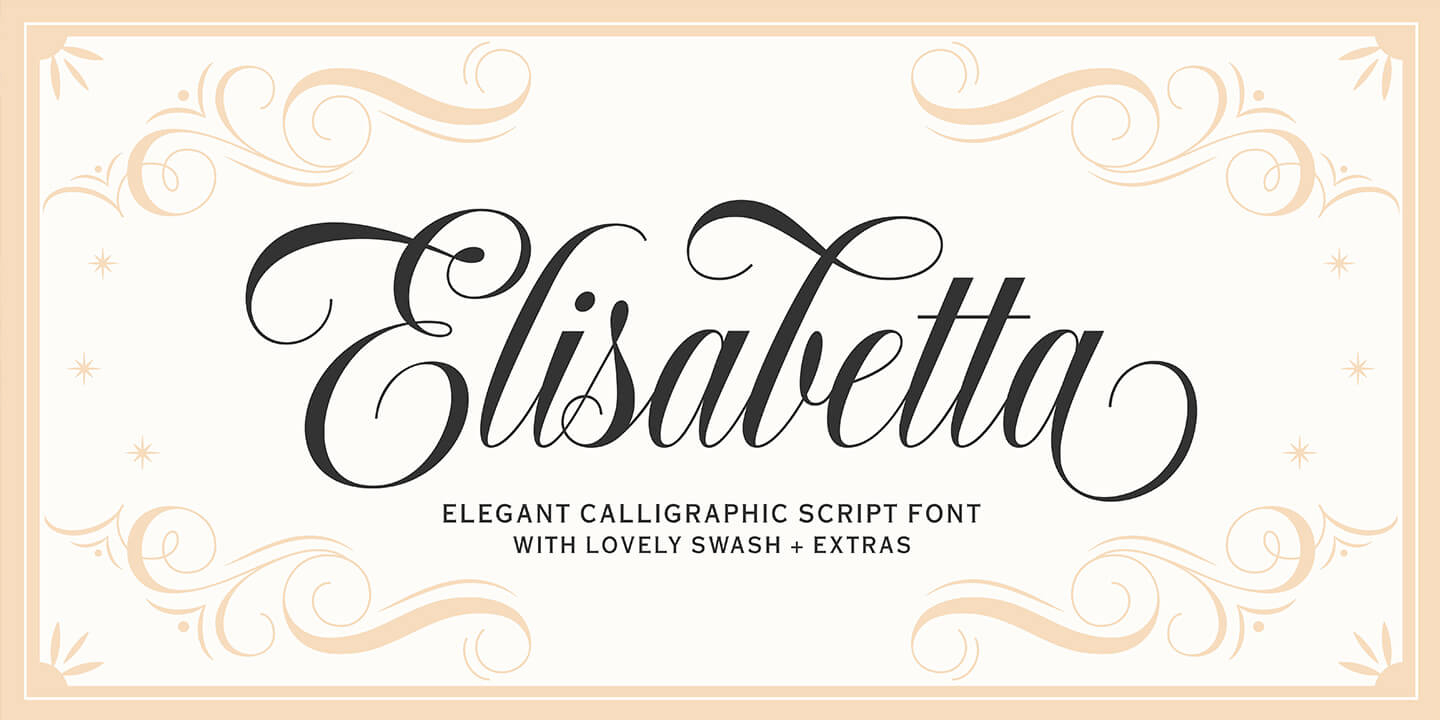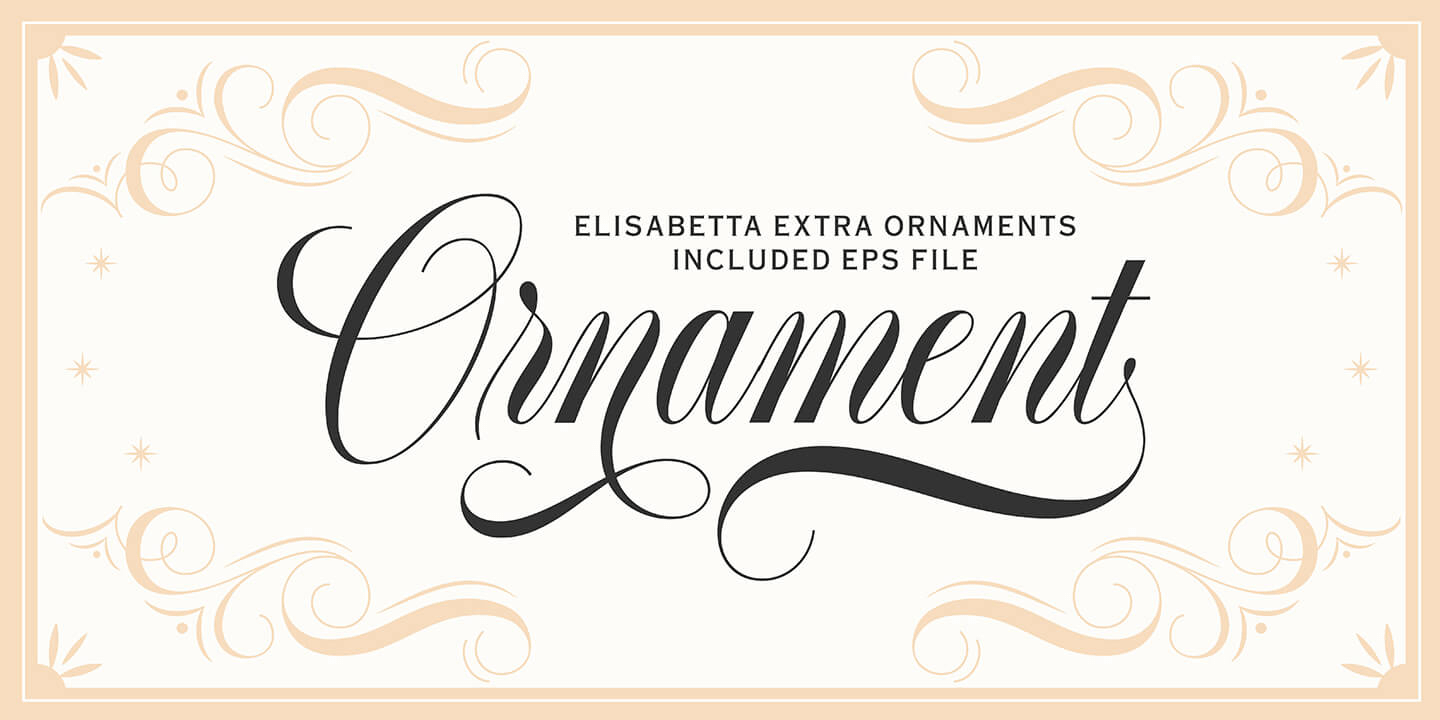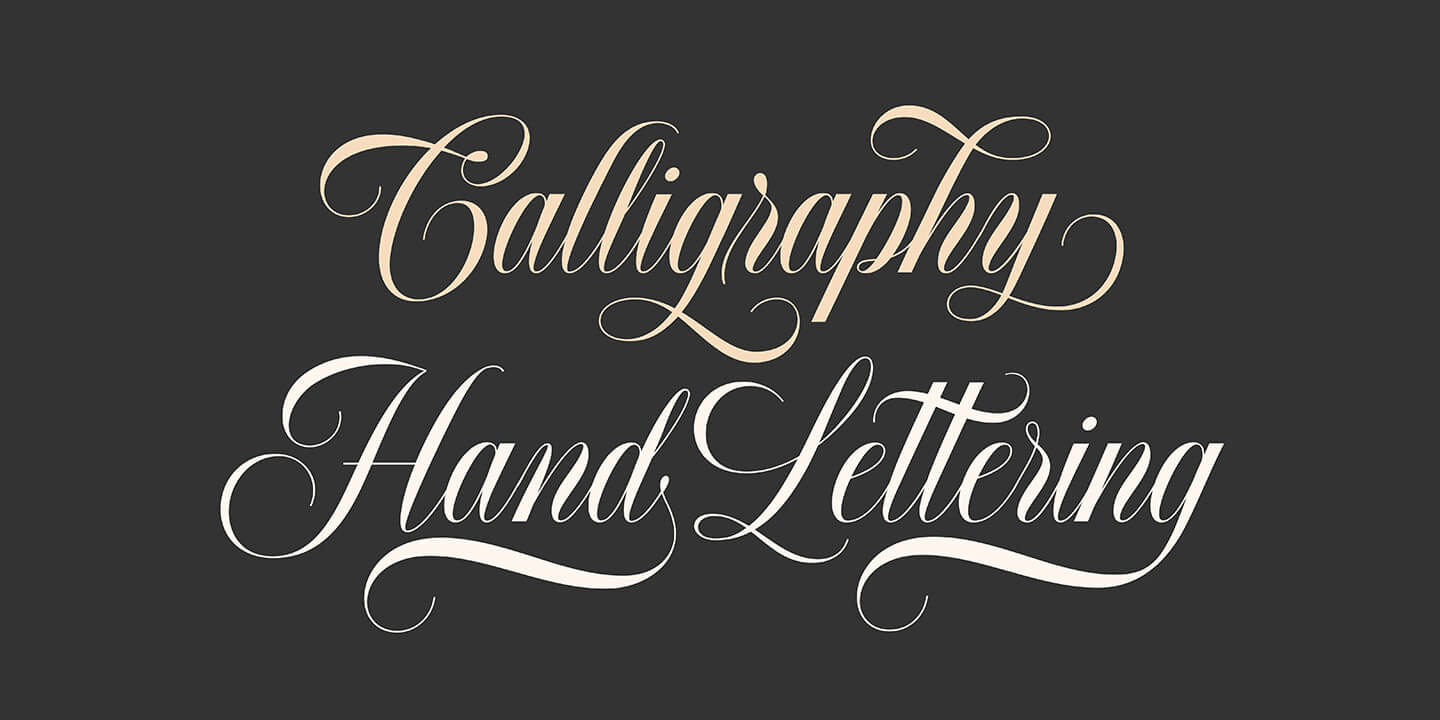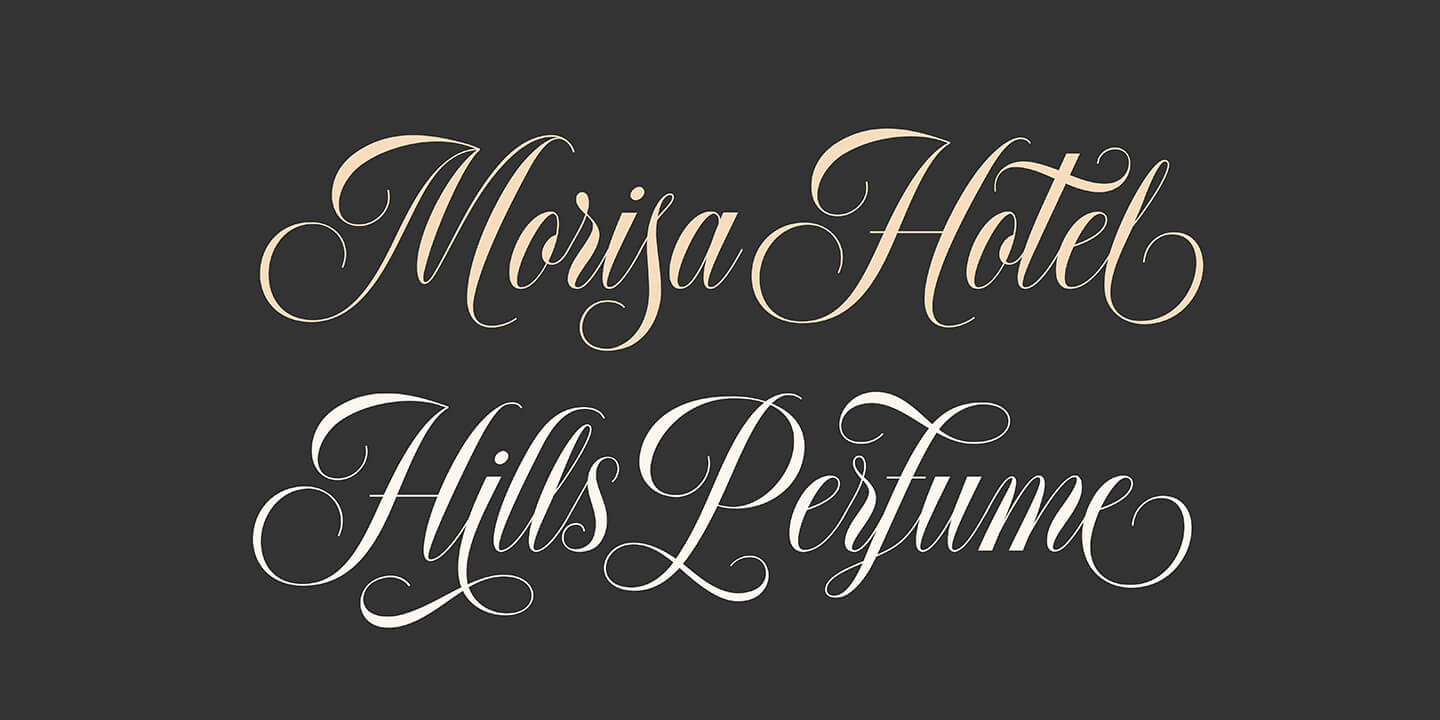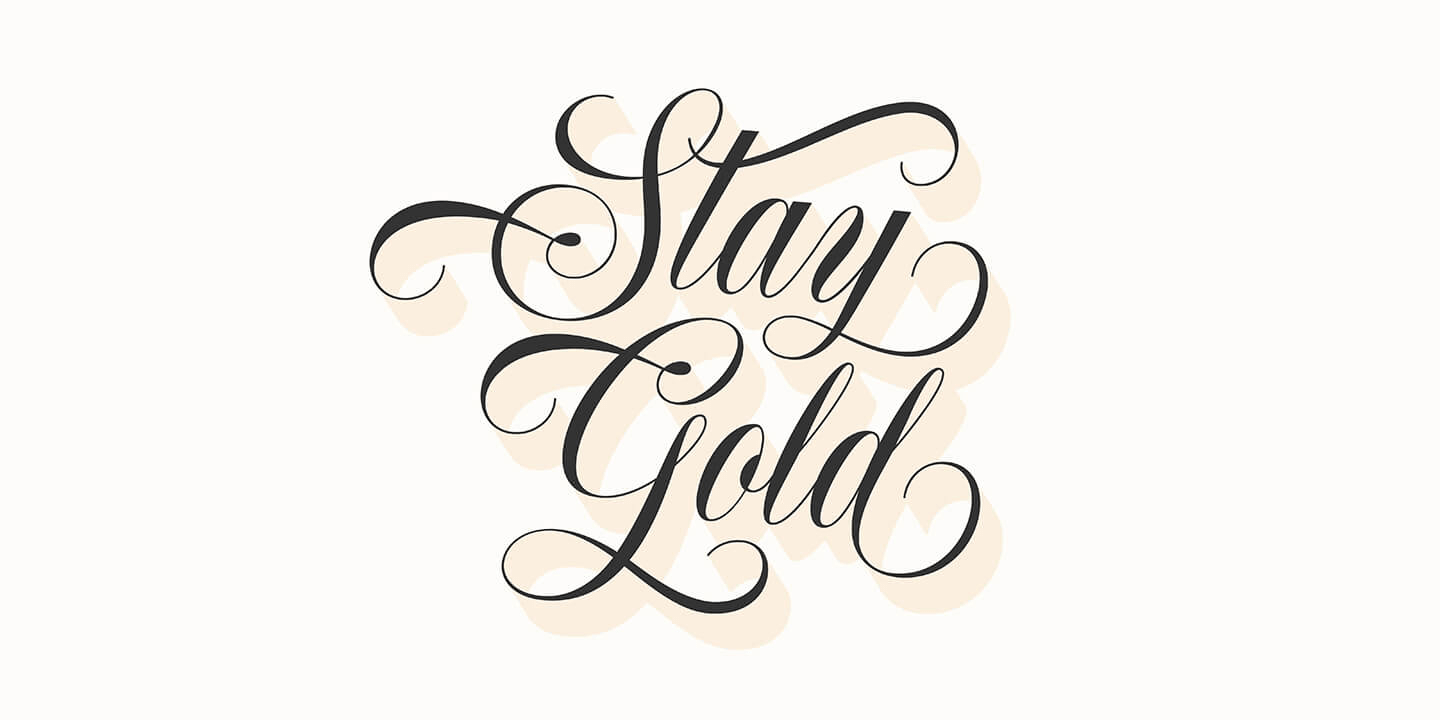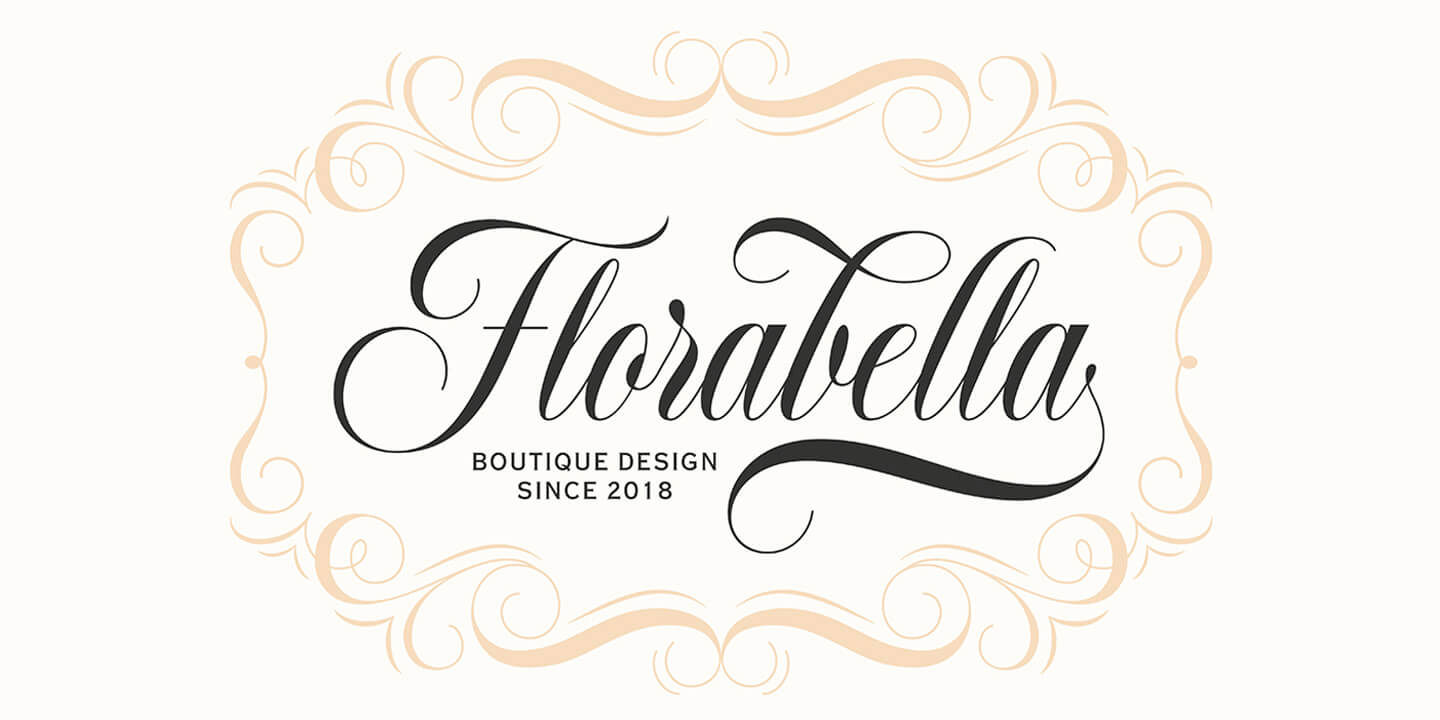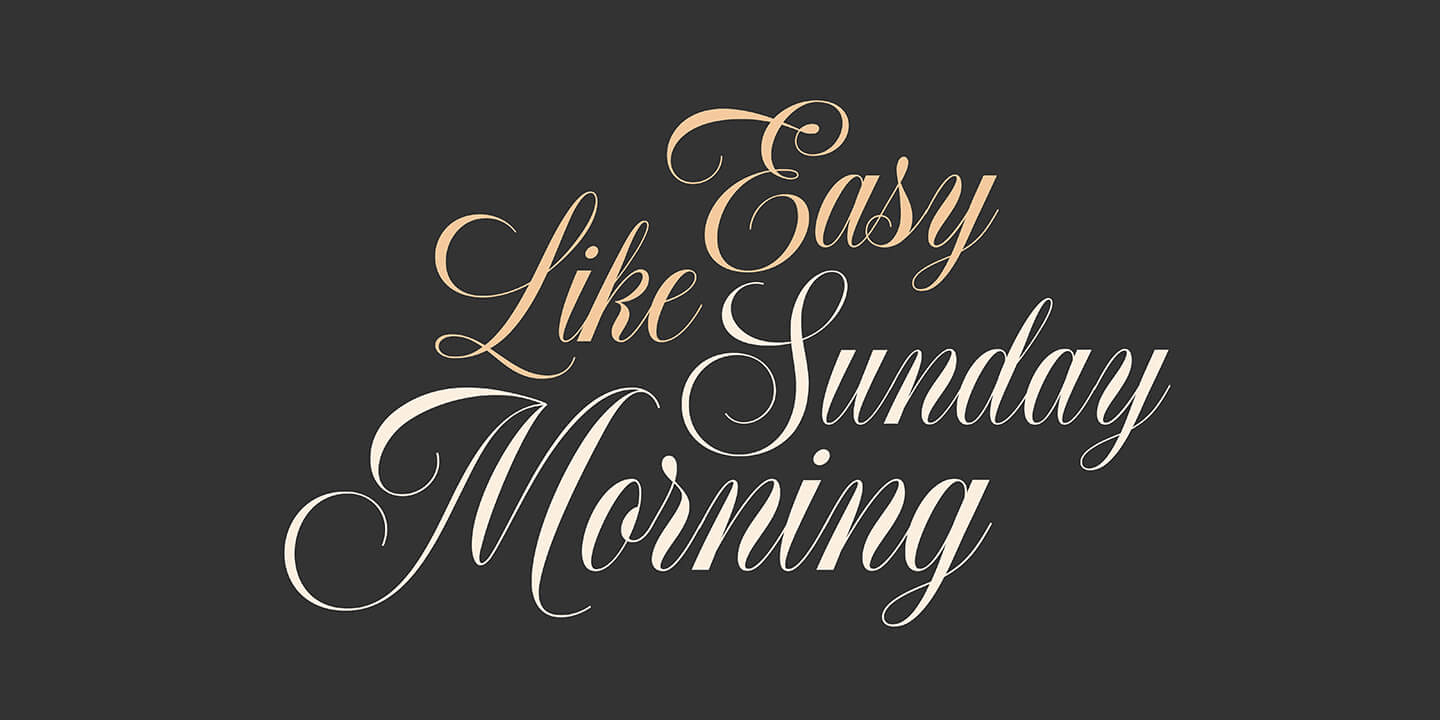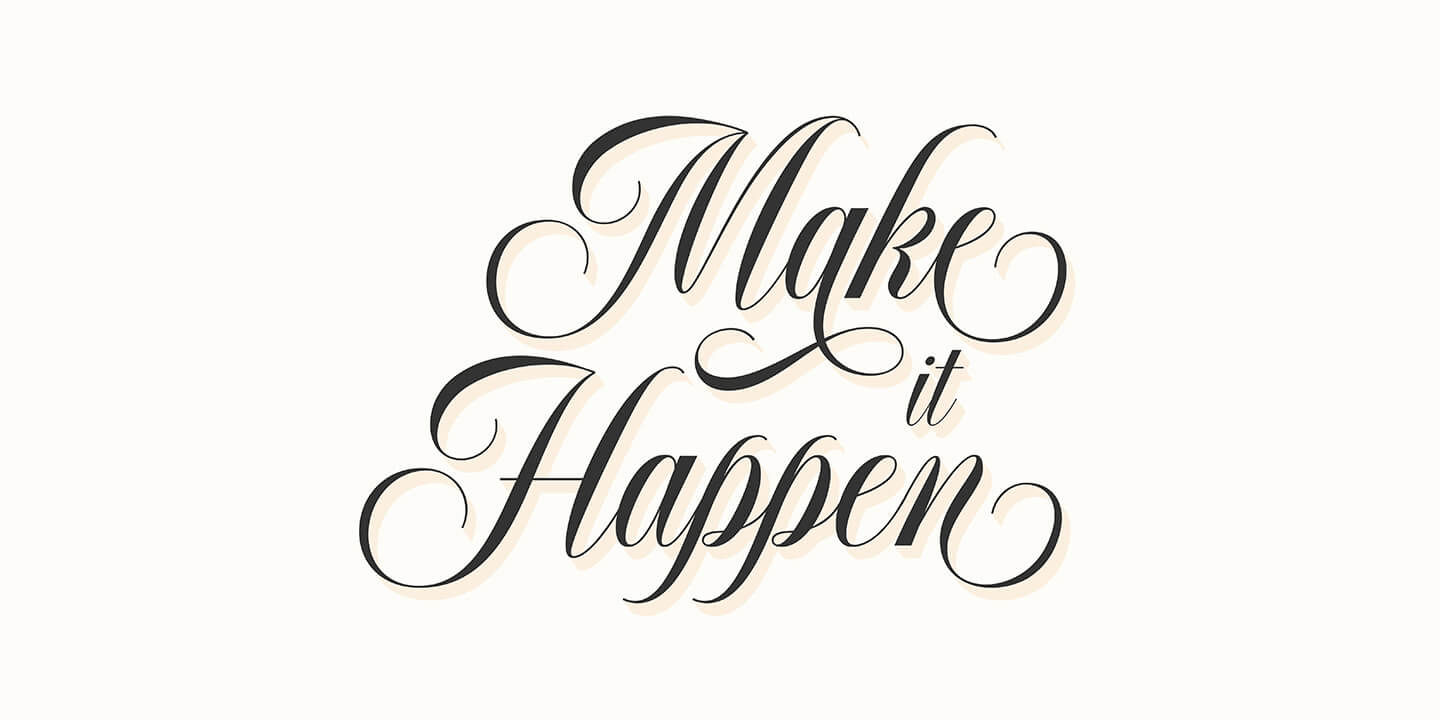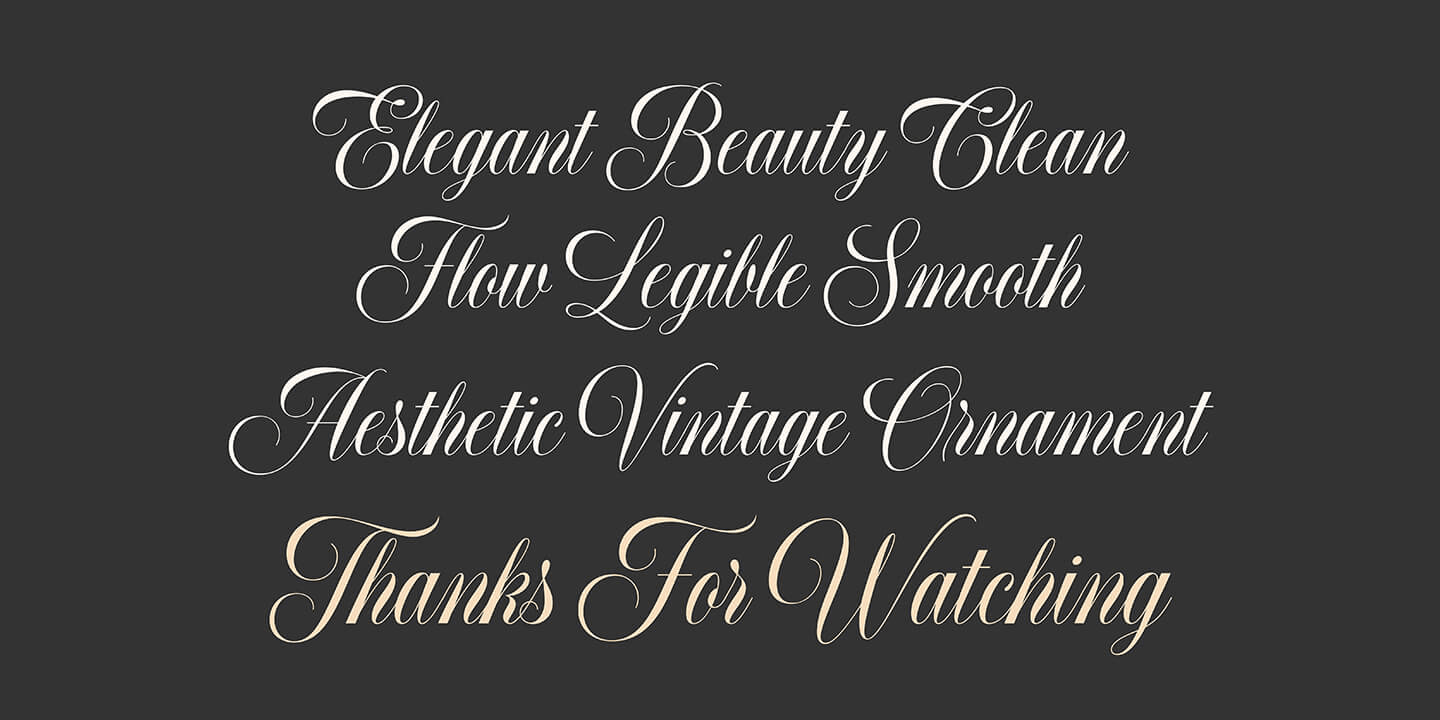
Elisabetta
Elisabetta is a calligraphy script font that comes with lovely alternate characters. A mixture of copperplate calligraphy with hand lettering style. Designed to convey style elegance. Elisabetta is attractive like a smooth, clean, feminine, sensual, glamorous, simple and highly legible typeface. Its classic style is perfect to be applied in any type of formal pieces such invitations, labels, menus, logos, fashion, make up, stationery, letterpress, romantic novels, magazines, books, greeting /wedding cards, packaging, and labels.
Elisabetta features 340+ glyphs and 160 alternative characters, including multiple language support. With OpenType features with stylistic alternates, ligatures and swash characters, that allows you to mix and match pairs of letters to fit your design, and also a touch of ornament makes this font look elegant.